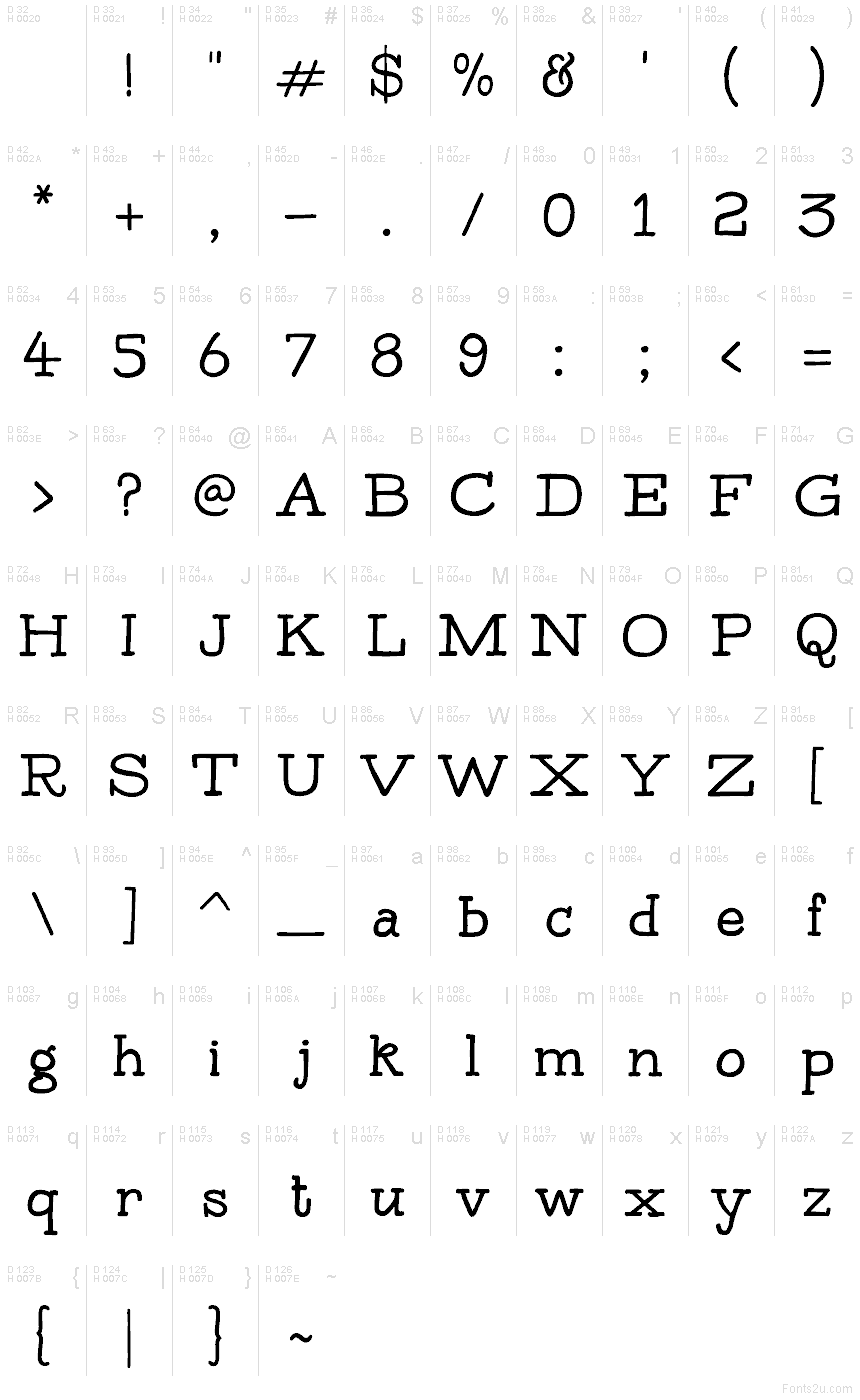
Bowler Hand Medium font by wearecolt is a free handwritten slab serif typeface. Drawn with a Rotring pen, its inky edges, sturdy slabs, and lightly scuffed texture deliver handmade warmth without the wobble. The rhythm feels steady and readable, so you get that vintage, typewriter grit while keeping layouts tidy and dependable-great when you need authenticity with structure. Part of the Bowler Hand family, it holds together beautifully in short paragraphs and big titles alike.
Using Bowler Hand Medium, headlines pop with a tactile, shopfront charm. It shines on coffee packaging, craft beer labels, cafe menus, farmers’ market signage, retro posters, and apparel graphics. The even spacing makes stacking words easy, and the roughened strokes add just enough bite for print and social. Pair this free font with a clean grotesque like Inter for body text, or run it slightly larger to let the inky texture breathe.